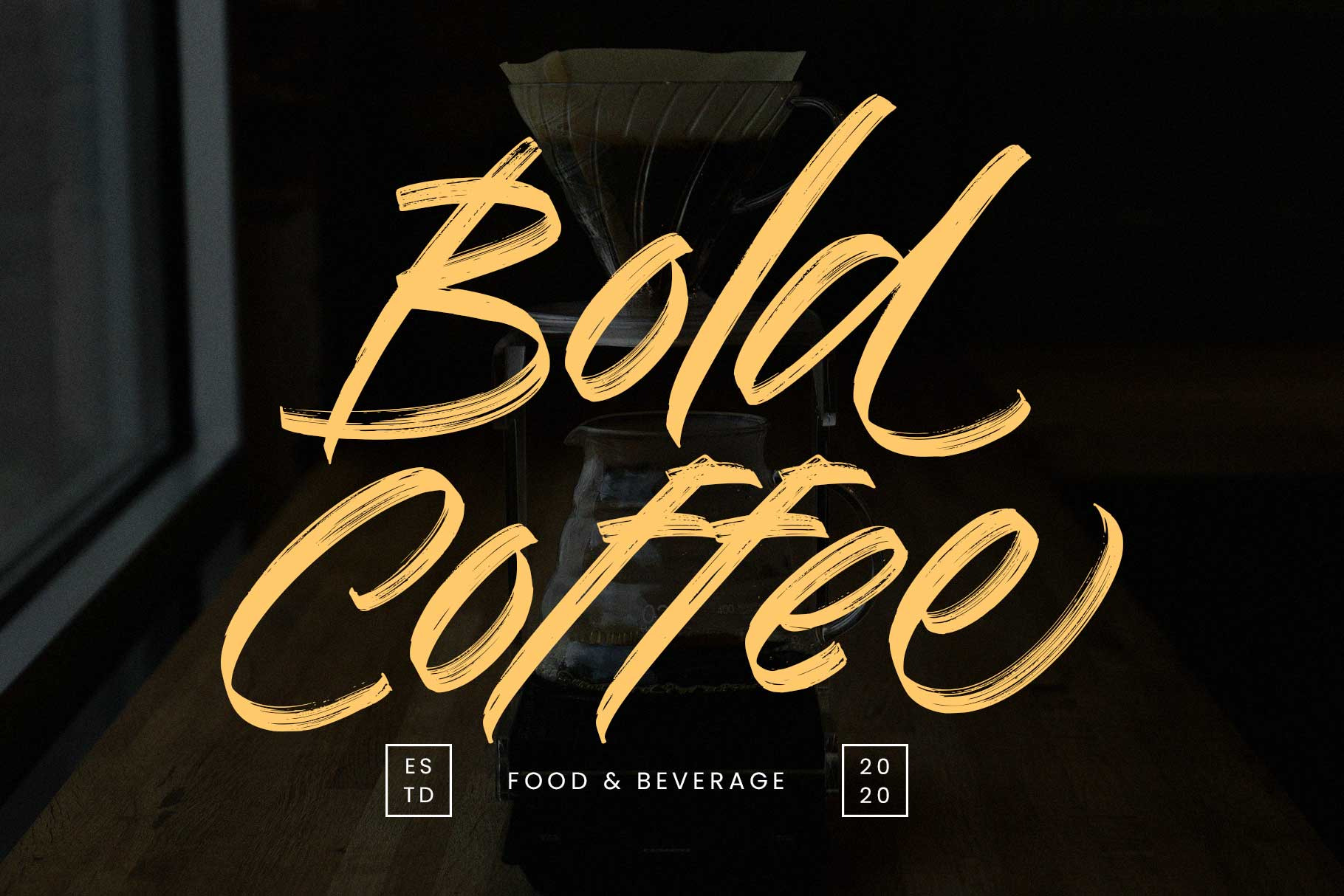
Jackman - Brush Font
Jackman is a freestyle brush font with natural, textured strokes that add a touch of joyfulness, making it truly stand out. It's the perfect choice for those seeking a progressive and dynamic vibe for their designs.
Carefully crafted with a sense of energy while maintaining a clean texture, Jackman strikes the perfect balance between boldness and elegance. Ideal for informal projects, particularly display and headline uses such as logotypes, stories, magazines, posters, events, apparel, motion graphics, and more!
- Numbers & symbols
- Stylistic alternates